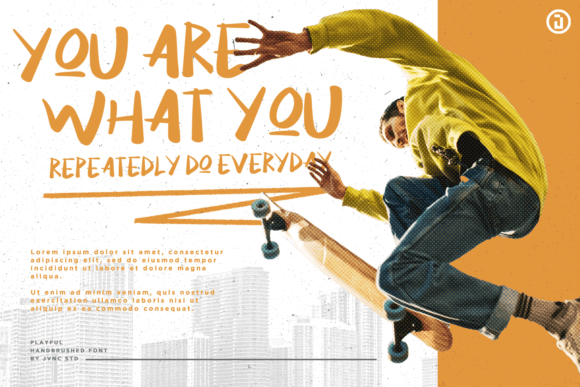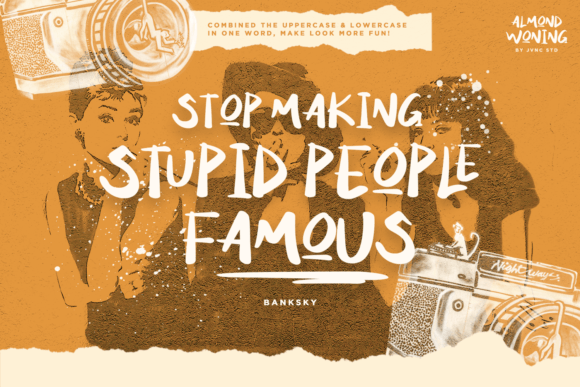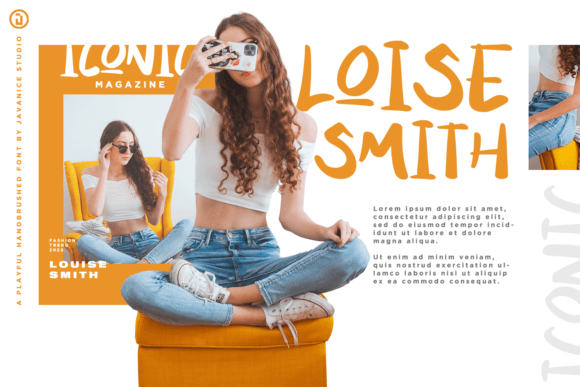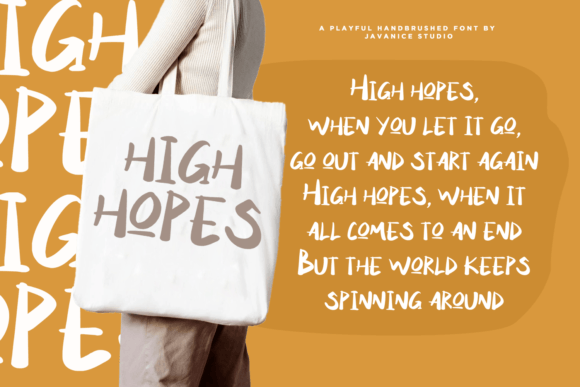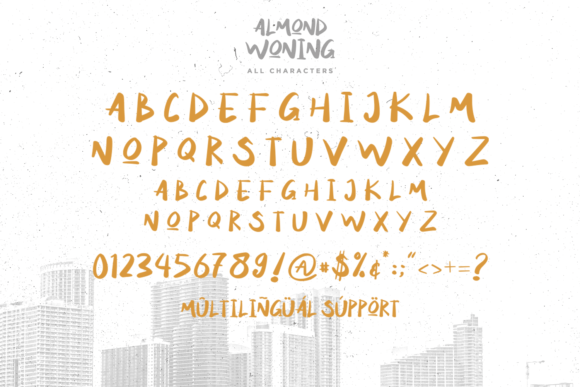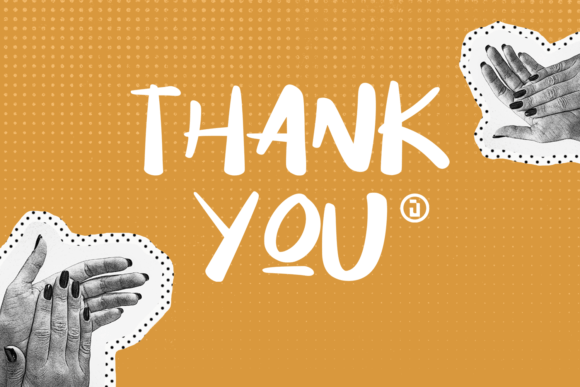
Have you ever stared at a blank page, waiting for inspiration to strike? Maybe it was a branding project, a packaging design, or a wedding invitation that needed that special touch. Whatever it is, you know that the right font can make all the difference. And that’s exactly where the Almond Woning Font comes in – a stylish display font designed to elevate your designs and leave a lasting impression.
This versatile font is perfect for a wide range of creative projects, from branding and apparel to magazines, books, and greeting cards. Its elegant and sophisticated design makes it a valuable asset for designers looking to add a touch of luxury to their work. Whether you’re working on a high-end fashion campaign or a simple wedding invitation, the Almond Woning Font is sure to impress.
Almond Woning Font Key Features
- Unique Characteristics: Almond Woning Font features a unique blend of modern and traditional elements, with clean lines, rounded shapes, and a touch of elegance.
- Font Style: Almond Woning Font is available in a range of font styles, including Regular, Italic, Bold, and Bold Italic.
Almond Woning Font Review
I recently had the chance to work with the Almond Woning font, and I must say it’s an interesting choice for designers looking for a unique aesthetic.
- Customizable style: Almond Woning offers a range of customization options, from ligatures to alternate characters, allowing designers to create a distinct look for their project.
- Scripted flair: The font’s hand-written feel adds a touch of elegance and sophistication to any design, making it perfect for branding and advertising materials.
- High-resolution quality: The font is available in various resolutions, ensuring that it looks crisp and clear on both digital and print materials.
- Limited language support: Almond Woning primarily supports Latin-based languages, which might be a concern for designers working on multilingual projects.
- Some characters may be inconsistent: I noticed some inconsistencies in character spacing and design, which might affect the overall readability of the text.
- May not be suitable for small text: Due to its handwritten nature, Almond Woning may not be the best choice for small text sizes, as it can become difficult to read.
Overall, Almond Woning is a stylish font that can add a unique touch to your designs. However, it may not be the best choice for projects requiring extensive language support or small text sizes. Use it sparingly and with caution, and you’ll be rewarded with a beautiful, elegant look.
Use Almond Woning Font for designs that require a unique, elegant touch.
Combine it with other fonts to create a visually appealing contrast.
Experiment with different font sizes and styles to achieve the desired effect.
Branding and marketing materials
Editorial and design publications
Alternatives to Almond Woning Font
Lato is a sans-serif typeface designed by Łukasz Dziedzic. It is a versatile font suitable for both digital and print media, including websites, magazines, and books. Lato is a great alternative to Almond Woning Font for designers who want a clean and modern look.
Comparison: Lato is more modern and clean than Almond Woning Font, making it a better choice for contemporary designs. However, Almond Woning Font has a more unique and hand-drawn feel that may be preferred by some designers.
Open Sans is a popular sans-serif font designed by Steve Matteson. It is highly legible and suitable for digital media, making it a great choice for websites and mobile apps. Open Sans is a good alternative to Almond Woning Font for designers who want a clean and readable font.
Comparison: Open Sans is more formal and professional than Almond Woning Font, making it a better choice for corporate designs. However, Almond Woning Font has a more playful and creative feel that may be preferred by some designers.
Great Vibes is a script font designed by Handmade-Type. It is a unique and elegant font suitable for creative and artistic designs. Great Vibes is a good alternative to Almond Woning Font for designers who want a distinctive and eye-catching font.